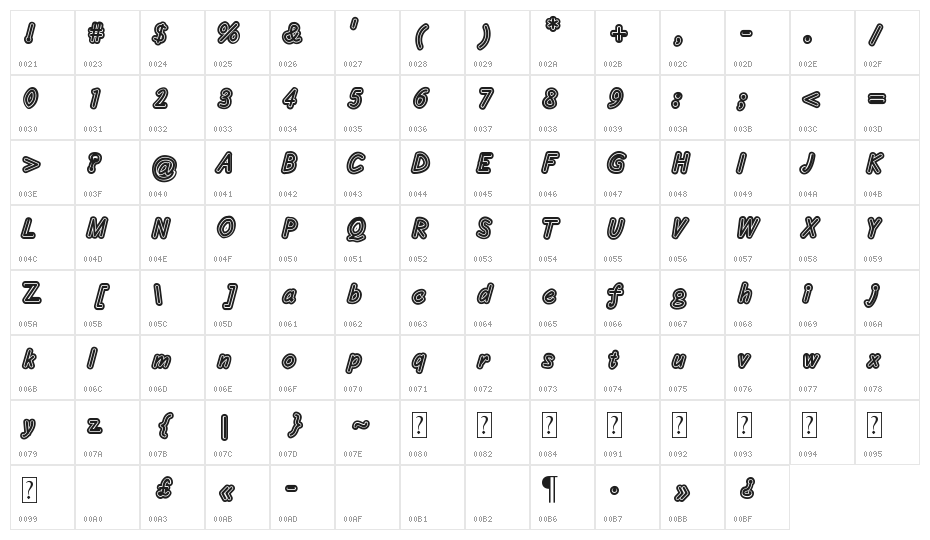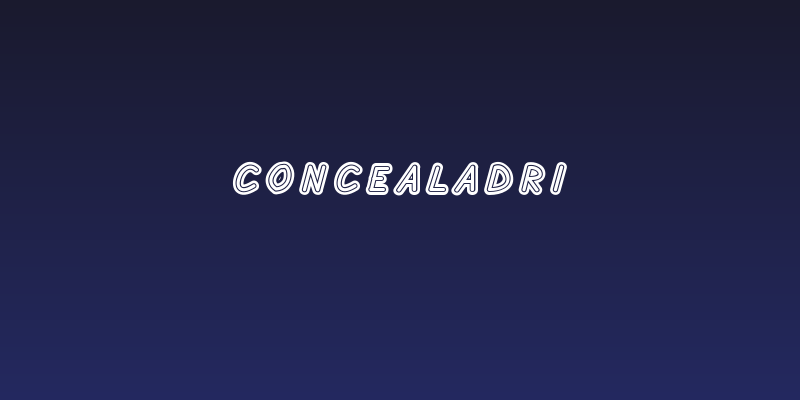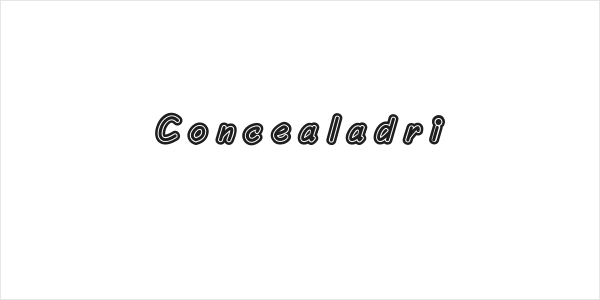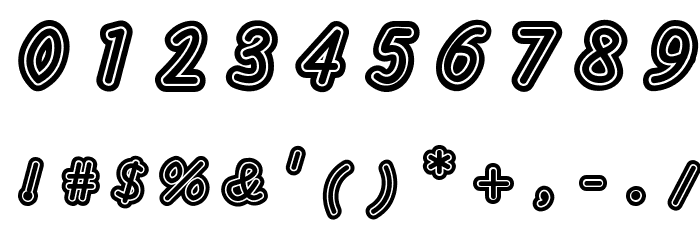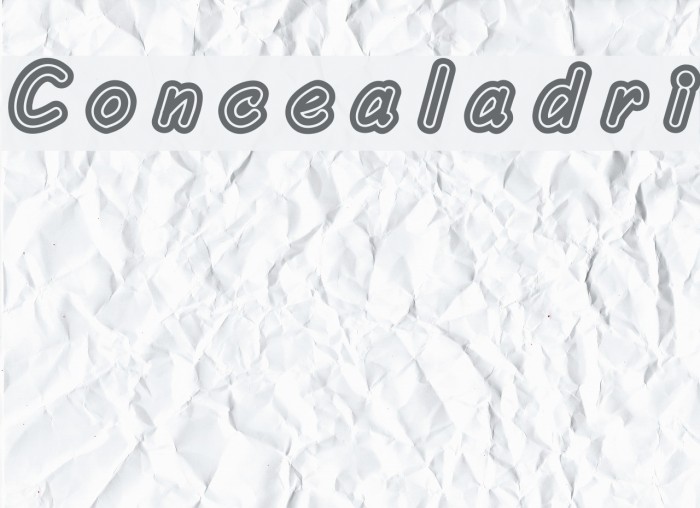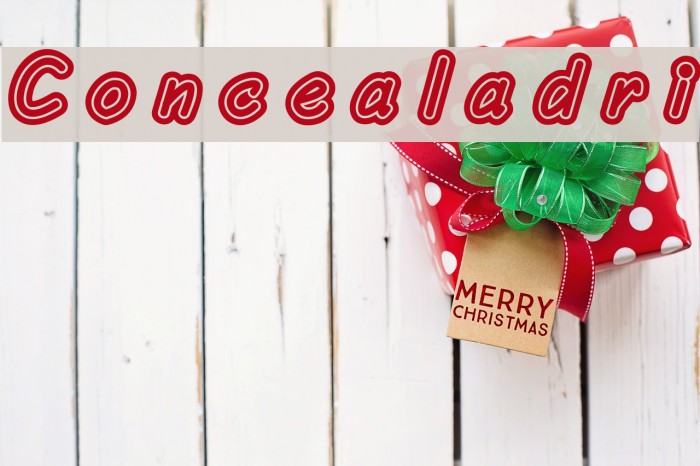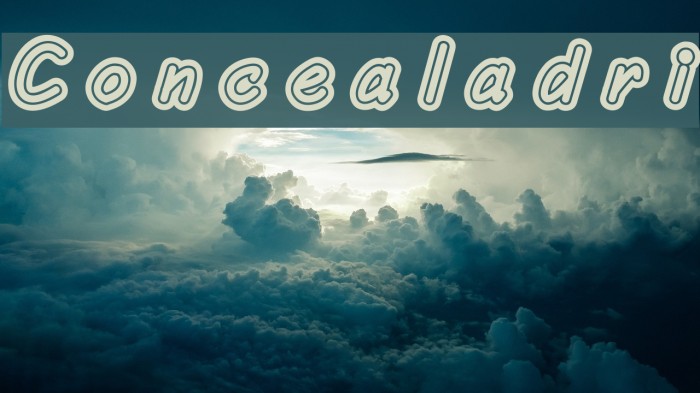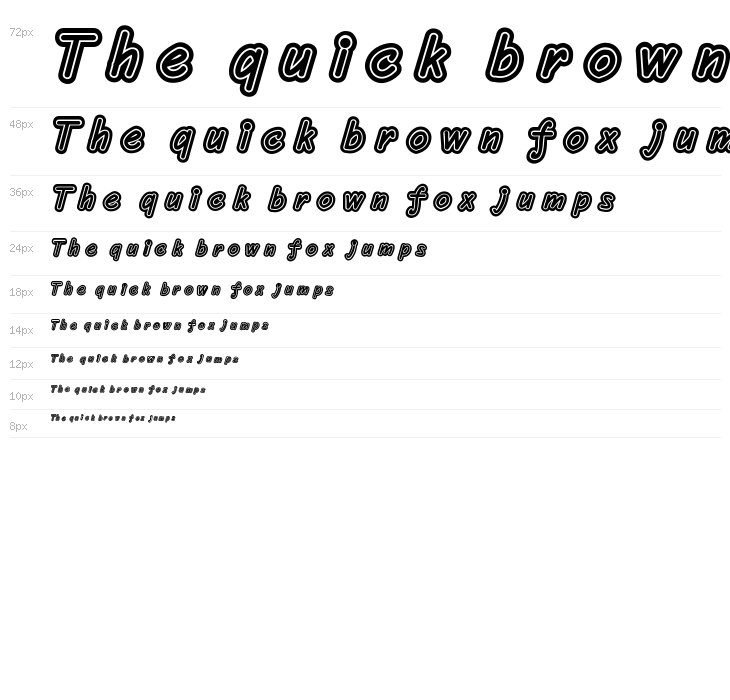
Concealadri Font
Concealadri Description
This font features a bold, outlined style with a playful and dynamic appearance. Each character is crafted with a double-line effect, creating a sense of depth and dimension. The letters are slightly slanted, adding a touch of movement and energy. The uppercase and lowercase letters maintain a consistent style, with rounded edges that contribute to a friendly and approachable look. The numbers and special characters follow the same design principles, ensuring uniformity across all elements. This font's unique outline makes it stand out, perfect for projects that require a bold statement.
| Proposed Projects | Ideal for posters, headlines, logos, and any design needing a bold, eye-catching font. |